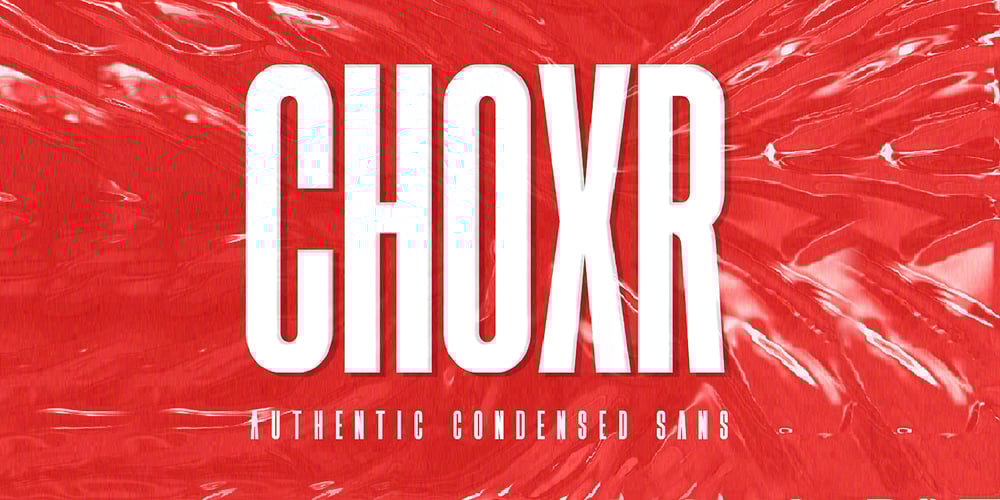
Choxr Font Family was designed by Abdul Malik Wisnu and published by Almarkha Type. Choxr contains 4 styles and family package options. Hello Everyone, ntroduce our new collection, Choxr Font is inspired by famous logos of shoes and brands that have very strong characteristics, Choxr has 4 styles that allow you to get a job with satisfying results. very suitable for posters, tshirt, packaging, branding, logotype and more.Choxr font with strong and challenging nuances. very suitable for the title, typography, clothes, Poster, magazines, brochures, packaging,Websites and much more for your design needs, making your designs more modern and professional